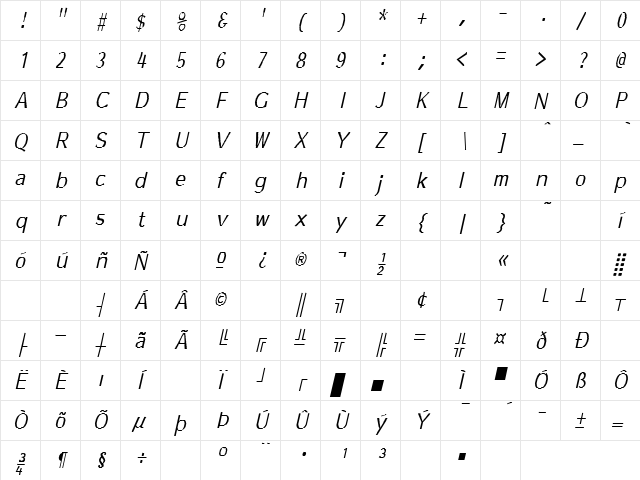
Rock And Roll 4 Italic
Design Context for Rock And Roll 4 Typeface
Rock And Roll 4 takes a measured approach to typography — its balanced proportions and neutral character make it a reliable workhorse for both digital and print work. Its italic angle brings a sense of urgency and motion to the letterforms.
Pro Tip: Use Rock And Roll 4 for emphasis, pull quotes, and subheadings where its slanted energy can add rhythm to the layout.